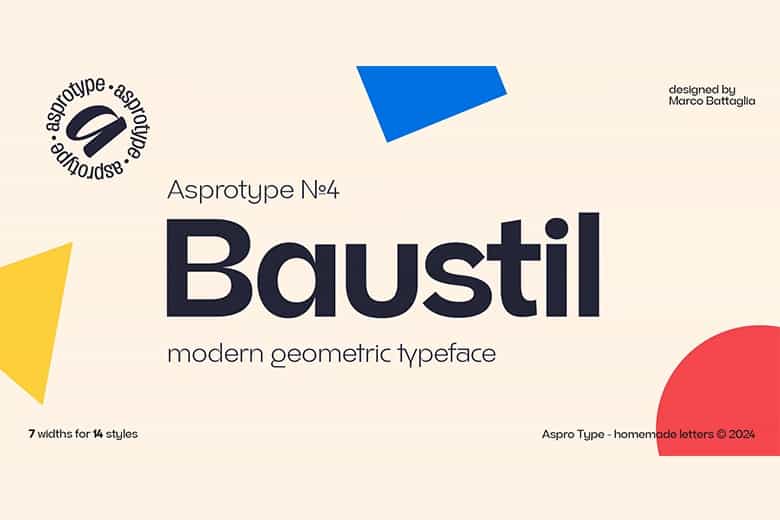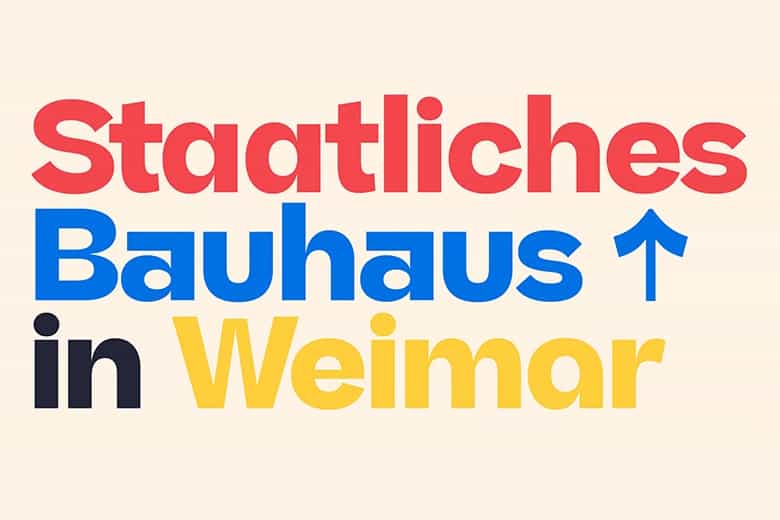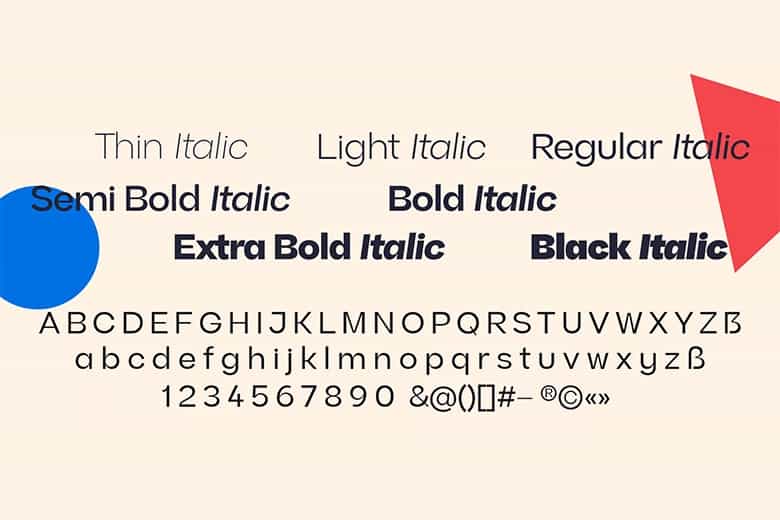
Baustil is a modern geometric sans serif typeface, which redraws the ideas of Herbert Bayer’s universal typography and Bauhaus. Being a typeface that is both technical and multifunctional, Baustil is able to balance Between precise measurement and furbishing the typeface details. What is more, the round letter structure, which is an idea to create a form as close to the perfect circle as possible, gives certain flexibility which breaks the stern appearance of narrow x-height that makes Baustil suitable for newspapers of all sizes.